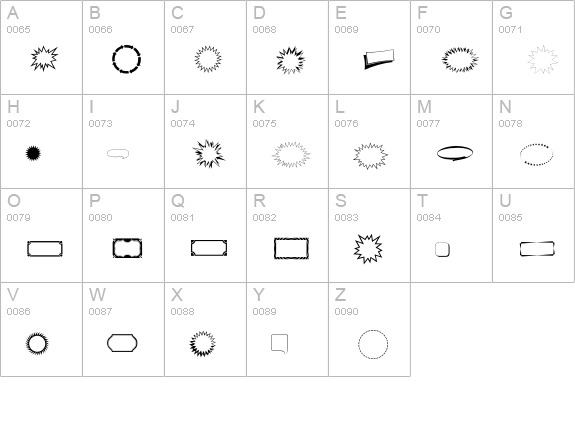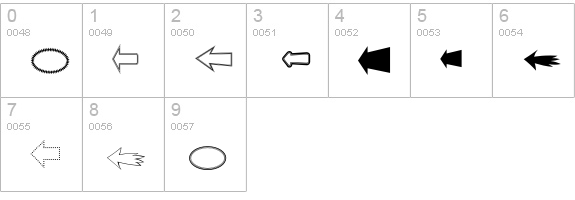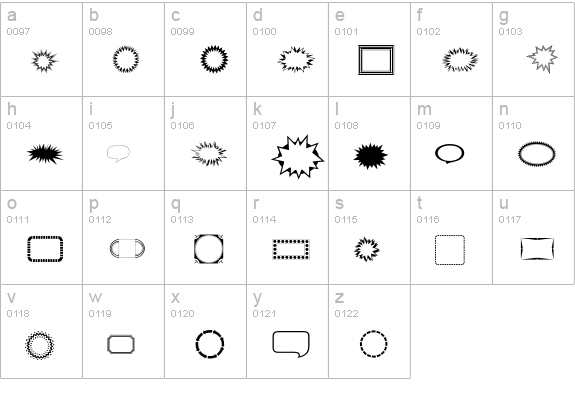
CommercialP02 Font Details
CommercialP02 font is a stylish and versatile typeface that is perfect for a wide range of design projects. With its clean lines and modern aesthetic, this font exudes professionalism and sophistication. Its sleek and elegant design makes it suitable for both digital and print applications, from branding and marketing materials to website design and social media graphics. What sets CommercialP02 font apart is that it is available for free download at FontsMarket.com. This means that you can easily access this high-quality font without any cost, making it a valuable resource for designers, creatives, and businesses looking to elevate their visual identity. Don't miss out on the opportunity to enhance your projects with the timeless elegance of CommercialP02 font – download it today and take your designs to the next level.